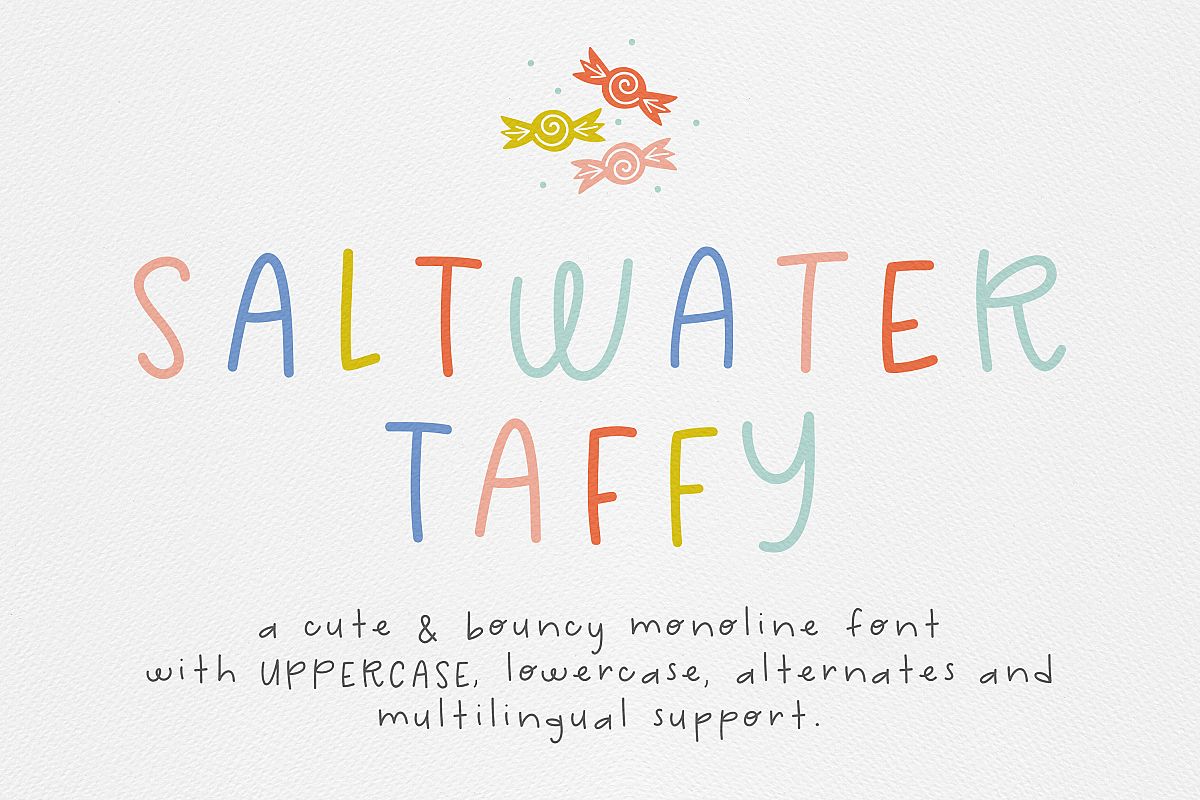
Saltwater Taffy
A fun and playful hand-drawn typeface with versatile letters that look great in all caps or used regularly in sentence case. Perfect for birthday invitations, stationery, kids t-shirt designs, calendars, journals and more!